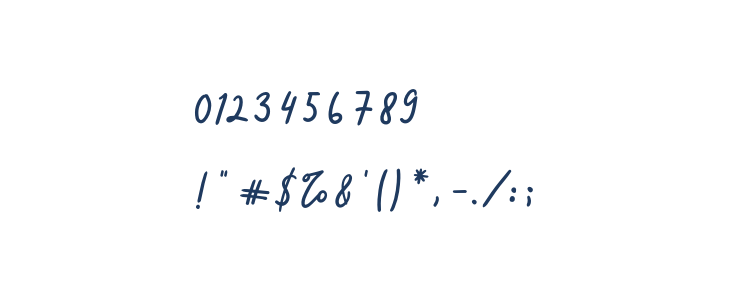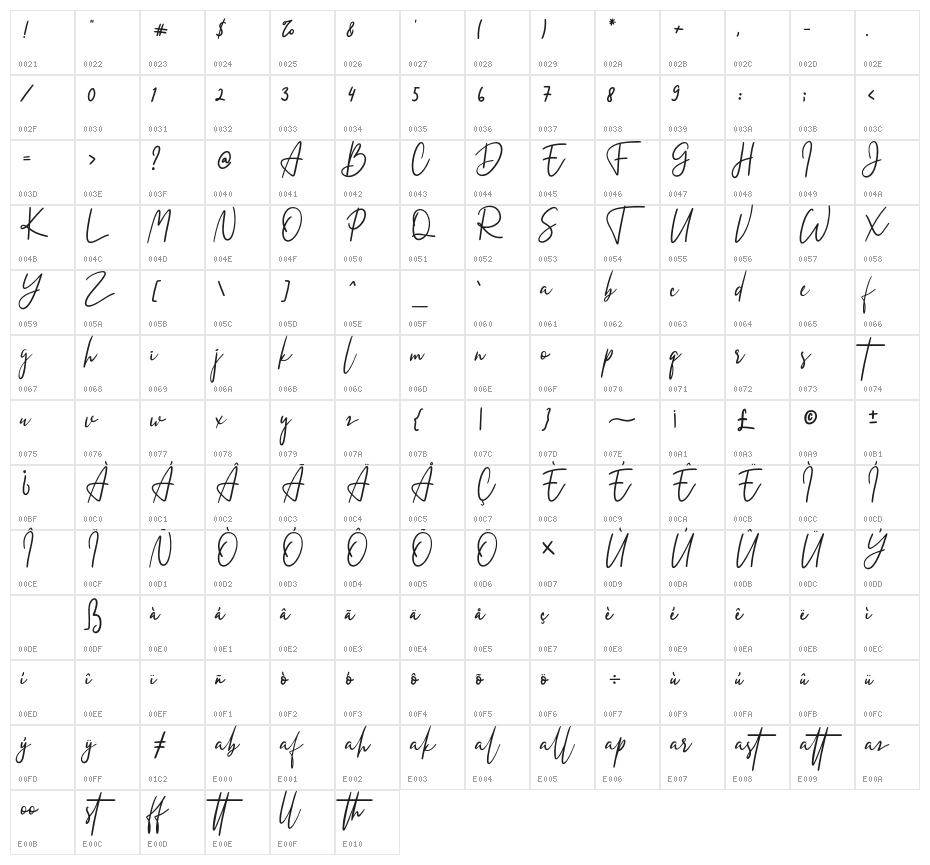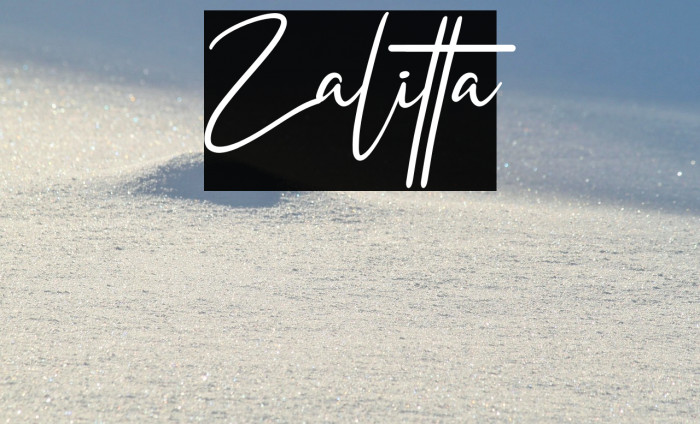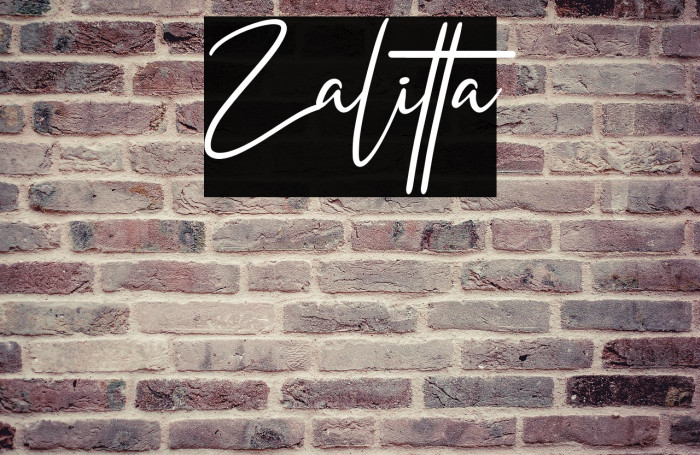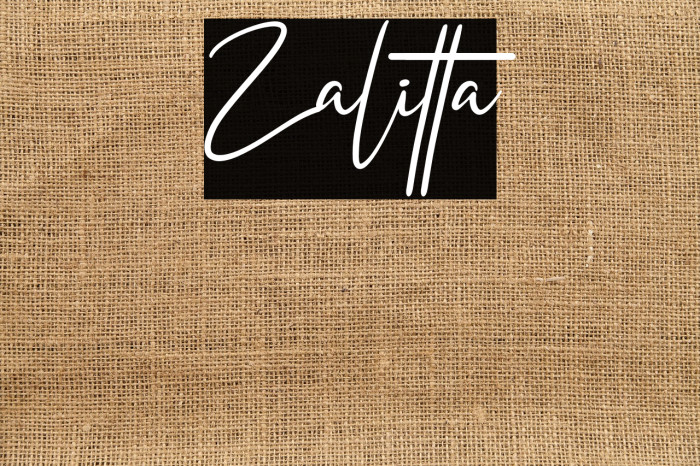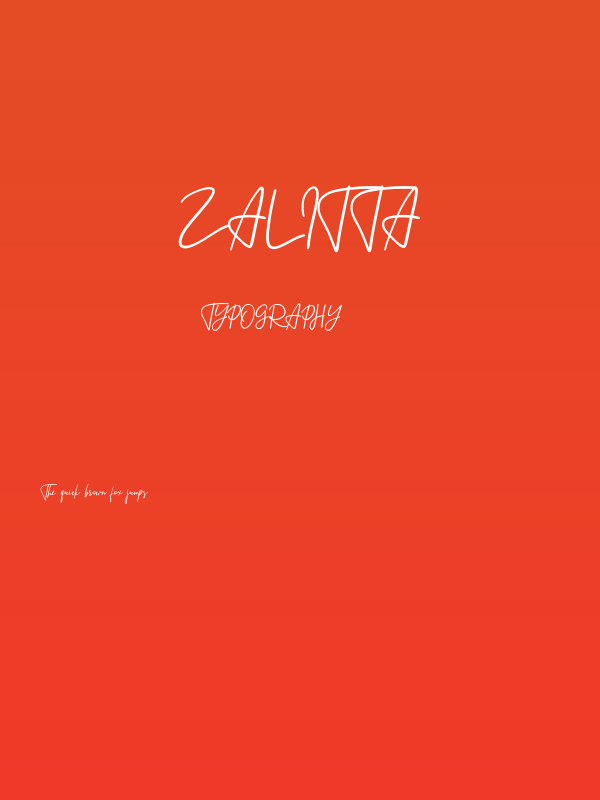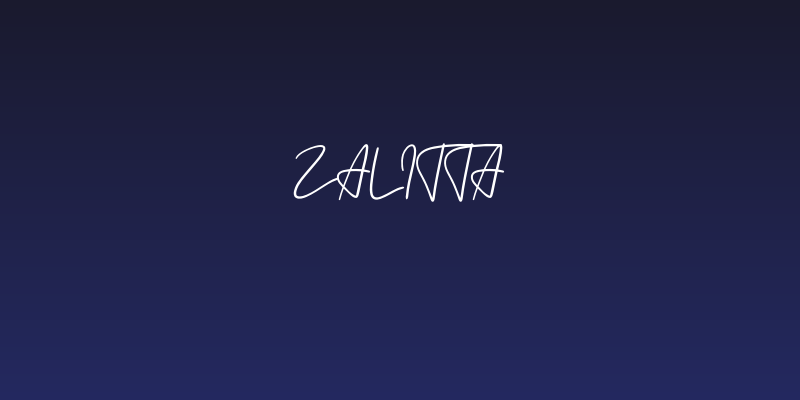
Zalitta Font
Zalitta Description
This font features a flowing, cursive style with an elegant and sophisticated appearance. The uppercase letters are tall and slender, with graceful loops and curves that give a sense of fluidity and movement. The lowercase letters maintain a consistent style, with smooth connections between each character, enhancing the script-like quality. Numbers and special characters are designed to match the overall aesthetic, providing a cohesive look. The font's handwritten nature adds a personal touch, making it suitable for projects that require a touch of elegance and informality.
A flowing, cursive font with elegant loops and a handwritten style from Uncategorized fonts.
- Font: Zalitta
- Proposed Projects: Ideal for wedding invitations, greeting cards, personal branding, and elegant logos.
- Overall Style: Elegant, Handwritten
- Use Case: Logos, Invitations, Personal Branding